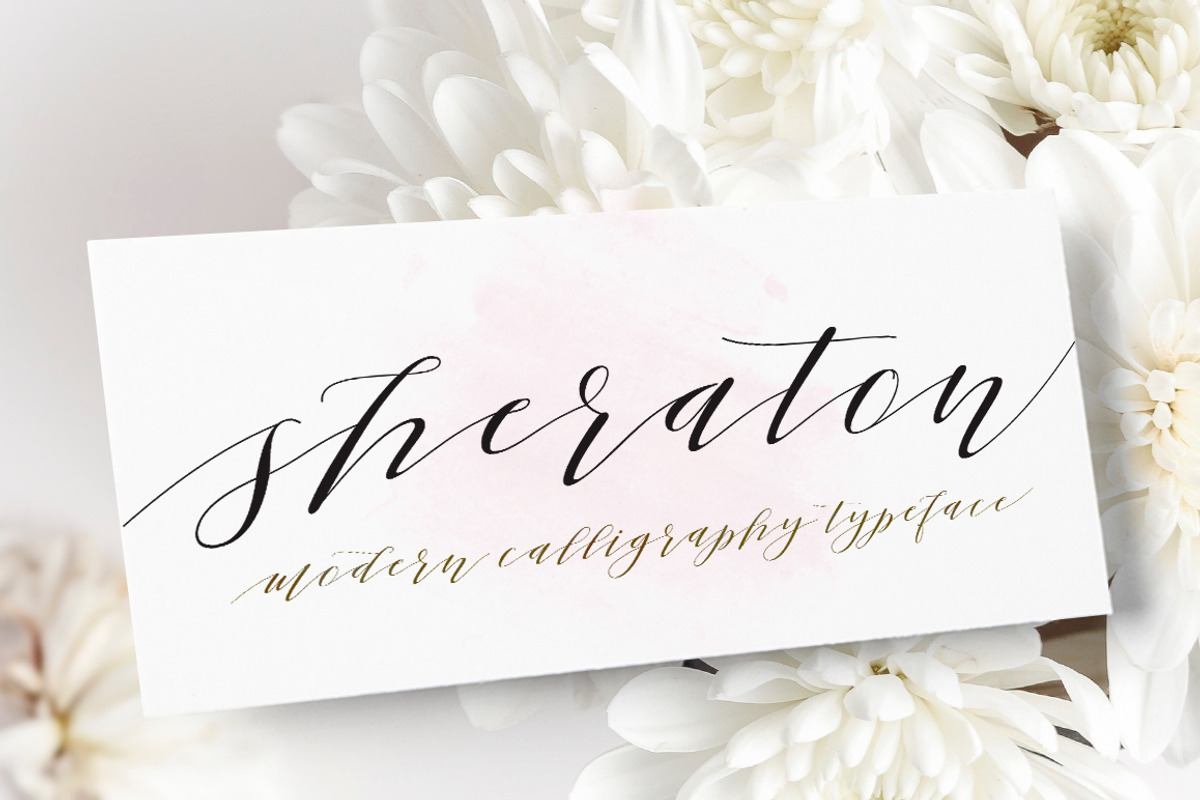
Sheraton Script Font Free Download is a luxurious and elegant script typeface that captures the essence of sophisticated handwritten calligraphy. With its flowing curves, delicate strokes, and refined design, Sheraton is perfect for wedding invitations, branding, high-end packaging, and elegant stationery.
Its smooth and graceful letterforms bring a timeless, romantic feel to any project, making it ideal for creative designs that require a personal yet polished touch. Whether you're working on a luxury brand, a special event, or artistic visuals, Sheraton adds beauty and elegance to your typography.
Designers love Sheraton for its elegance, readability, and versatility across both print and digital platforms. Want to add a touch of refined luxury to your next project? Download Sheraton Script Font Free Download and elevate your design with sophisticated, handwritten charm.